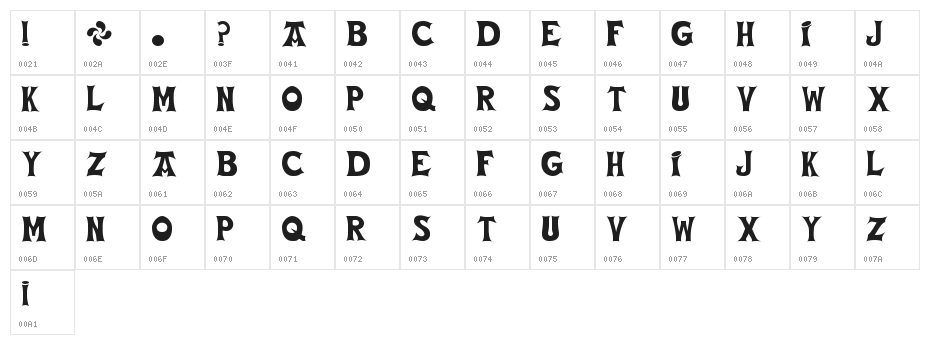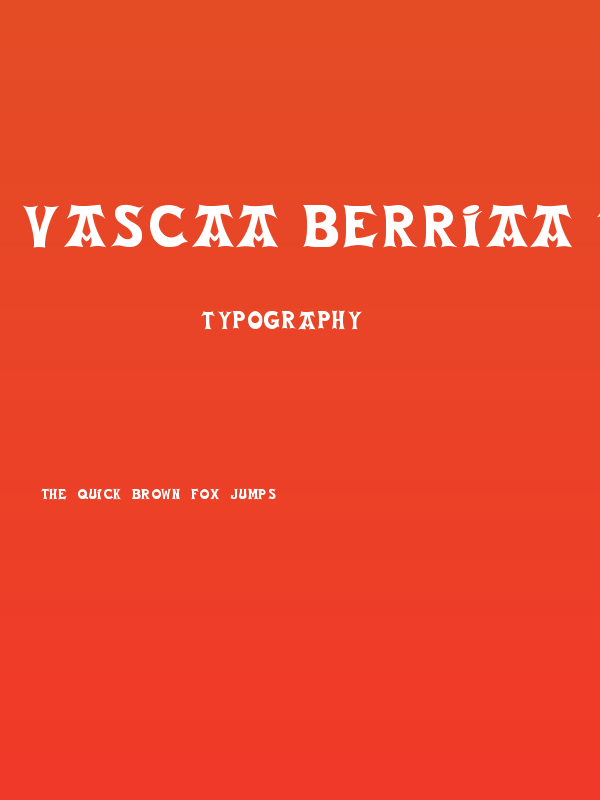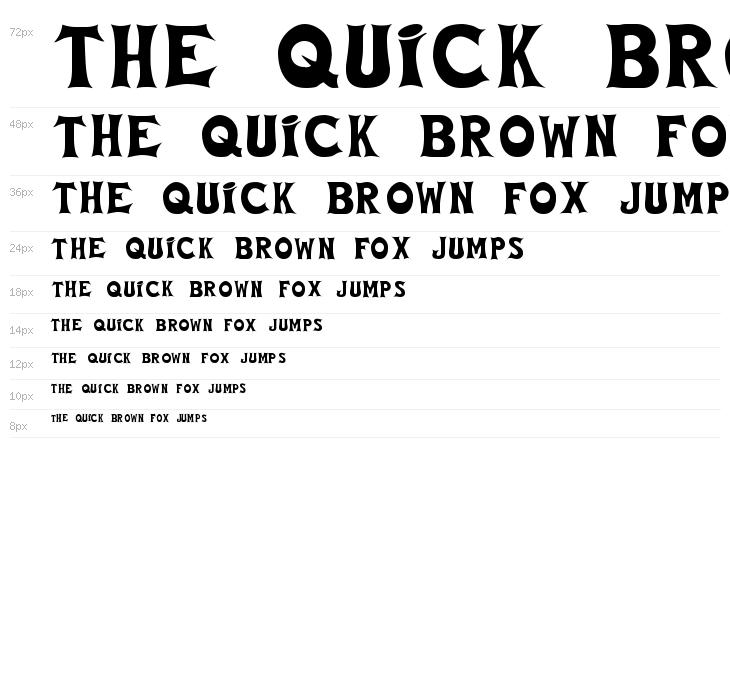
Vasca-Berria-TT Font
Vasca-Berria-TT Description
This font features a bold and striking design with sharp, angular serifs that create a sense of movement and energy. The characters are crafted with a unique blend of traditional and modern elements, giving them a distinctive look. The uppercase letters are particularly prominent, with wide, flaring serifs that add a touch of drama. The lowercase letters maintain this bold style, ensuring consistency across the typeface. The numbers and special characters are equally dynamic, making them suitable for attention-grabbing designs. Overall, this font exudes a sense of boldness and creativity, making it ideal for projects that require a strong visual impact.
| Proposed Projects | Ideal for headlines, posters, branding, and any project requiring a bold statement. |